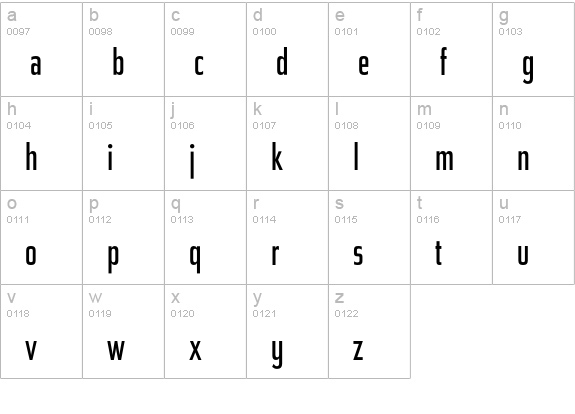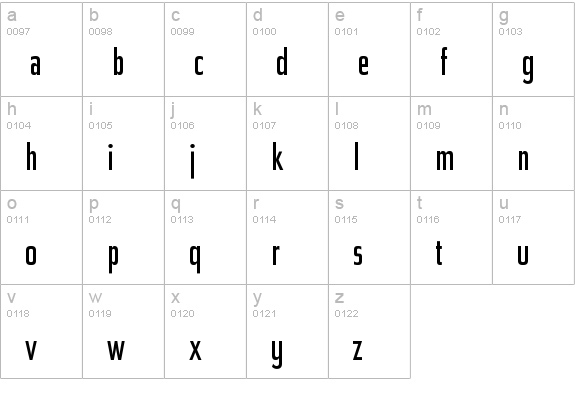
Tasse-Regular is the standard, neutral variant in the Tasse typeface family \xE2\x80\x94 well suited to general body text, paragraphs, and standard typographic work.
Tasse-Regular font is a stunning typeface that effortlessly combines elegance and modernity. Its sleek and sophisticated design makes it perfect for a wide range of projects, from branding and packaging to editorial layouts and digital designs. With its clean lines and balanced proportions, Tasse-Regular brings a touch of refinement to any project. The font features a timeless appeal, making it suitable for both contemporary and classic design styles. Its versatility allows it to be used in various contexts, whether it's for fashion magazines, luxury brands, or high-end websites. One of the most remarkable aspects of Tasse-Regular font is that it is freely available to download at FontsMarket.com. This means that designers and creatives can access this exceptional font without any cost, allowing them to enhance their projects with a touch of sophistication without breaking the bank. Moreover, Tasse-Regular font offers a wide range of characters, including uppercase and lowercase letters, numerals, punctuation marks, and special symbols. This extensive character set ensures that you have all the tools you need to create visually stunning and professional-looking designs. The legibility of Tasse-Regular font is exceptional, even in small sizes or at lower resolutions, ensuring that your message will be clear and easily understood by your audience. Its smooth and consistent letterforms make for seamless reading experiences, enhancing the overall visual appeal of your design. Whether you're designing a logo, creating a magazine layout, or developing a website, Tasse-Regular font is a fantastic choice that will elevate your projects to new heights. Its combination of elegance, versatility, and the fact that it is freely available to download at FontsMarket.com makes it an invaluable asset for any designer or creative professional.